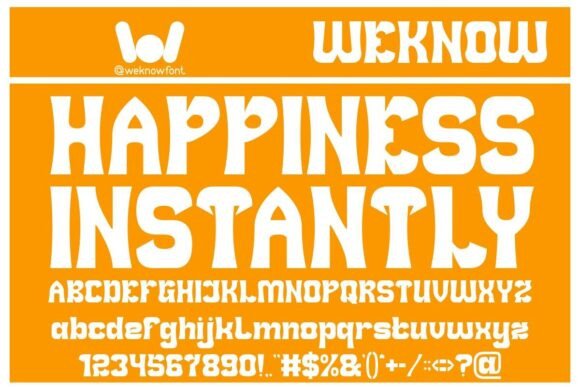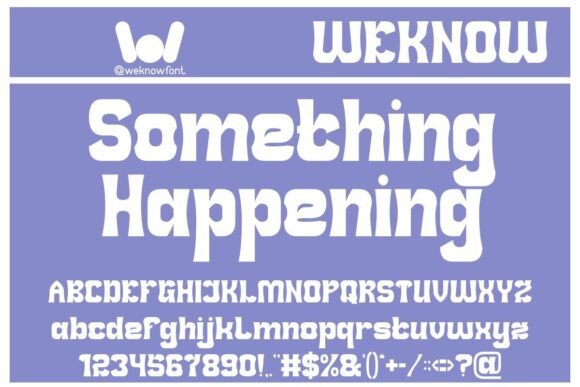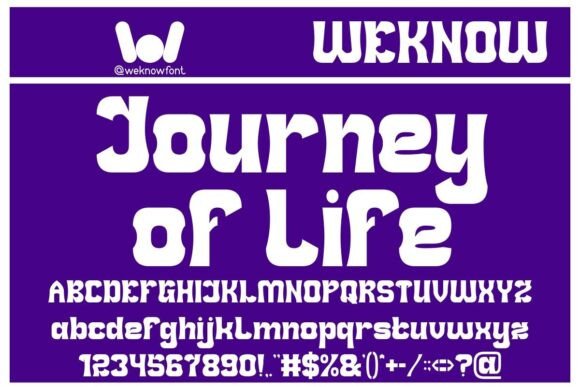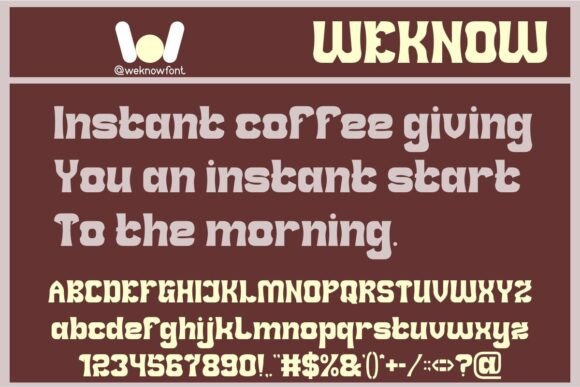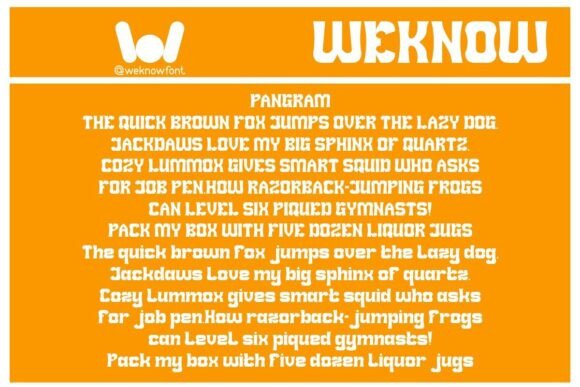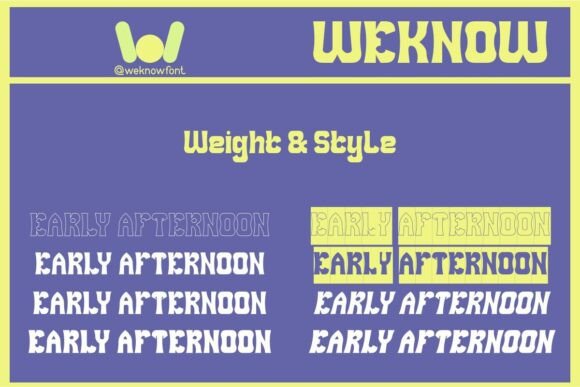
Introducing Early Afternoon Font: The Ultimate Display Font for Creative Projects
Are you tired of using the same old fonts for your design compositions? Look no further than Early Afternoon, a uniquely versatile and lively display font that’s guaranteed to enhance all your creative endeavors. This whimsical font delivers an organic, natural feel, perfect for capturing the spirit of playful freedom in your designs.
The Characteristics of Early Afternoon Font
Early Afternoon font is a game-changer for designers and crafters looking to add a touch of personality to their work. Its distinctive character shines when utilized in logos and logotypes, anchoring corporate and brand identity with bold strokes and fanciful flair. The font’s unique magic is perfect for a variety of applications, from apparel and posters to music covers and movie captions.
Perfect for the Apparel Industry
If you’re in the apparel industry, Early Afternoon font is a must-have for your design arsenal. It lifts your designs onto a higher sartorial plane, adding a touch of whimsy and playfulness to your creations. Whether you’re designing t-shirts, hoodies, or hats, this font is sure to make your products stand out from the crowd.
Bringing Whimsy to Posters, Music Covers, and Movie Captions
Early Afternoon font is also ideal for creating eye-catching posters, music covers, and movie captions. Its bold strokes and fanciful flair add a touch of excitement and energy to any design, making it perfect for grabbing the attention of your audience. Whether you’re promoting a concert, movie, or product launch, this font is sure to make your designs pop.
Adding Playfulness to Books and Comics
Early Afternoon font is also perfect for adding a playful tone to books, comics, and cartoons. Its whimsical character brings a sense of fun and adventure to any story, making it ideal for children’s books, graphic novels, and comics. With this font, you can create engaging and entertaining content that will captivate your readers.
Boosting Social Media Presence
In today’s digital age, having a strong social media presence is crucial for any business or brand. Early Afternoon font can help you take your social media game to the next level. Its charismatic charm is perfect for Instagram and YouTube, allowing you to create eye-catching graphics and videos that will engage your audience and set you apart from the competition.
Why Choose Early Afternoon Font?
So why choose Early Afternoon font for your next project? Here are just a few reasons:
- Unique and Versatile: Early Afternoon font is a one-of-a-kind display font that’s perfect for a variety of creative projects.
- Organic and Natural Feel: This font delivers an organic, natural feel that’s perfect for capturing the spirit of playful freedom in your designs.
- Bold Strokes and Fanciful Flair: Early Afternoon font features bold strokes and fanciful flair, making it perfect for logos, logotypes, and other design applications.
- Perfect for Social Media: This font is ideal for social media platforms like Instagram and YouTube, allowing you to create eye-catching graphics and videos that will engage your audience.
In conclusion, Early Afternoon font is a must-have for designers and crafters looking to add a touch of personality to their work. Its unique and versatile character makes it perfect for a variety of creative projects, from apparel and posters to music covers and movie captions. With its organic and natural feel, bold strokes, and fanciful flair, this font is sure to enhance all your creative endeavors and help you stand out from the crowd.